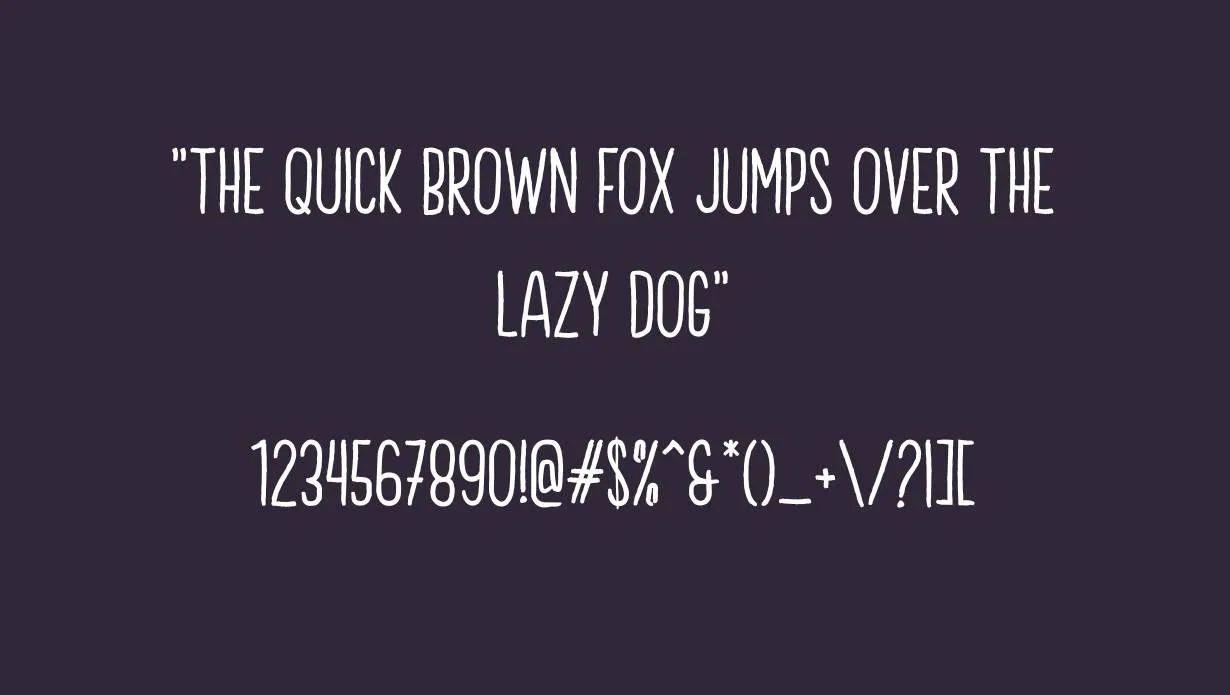
Brooks Hand Bold Font has a bold and casual style that stands out. Its handwritten appearance brings a personal touch to any text. This font feels friendly and relaxed, making it perfect for invitations or informal notes.3
Name Brooks Hand Bold Font
Designer Indian Type Foundry
Style Handwritten
Its boldness adds emphasis without losing the approachable feel. Whether used in greeting cards or signage, it gives a strong yet inviting vibe to the text.